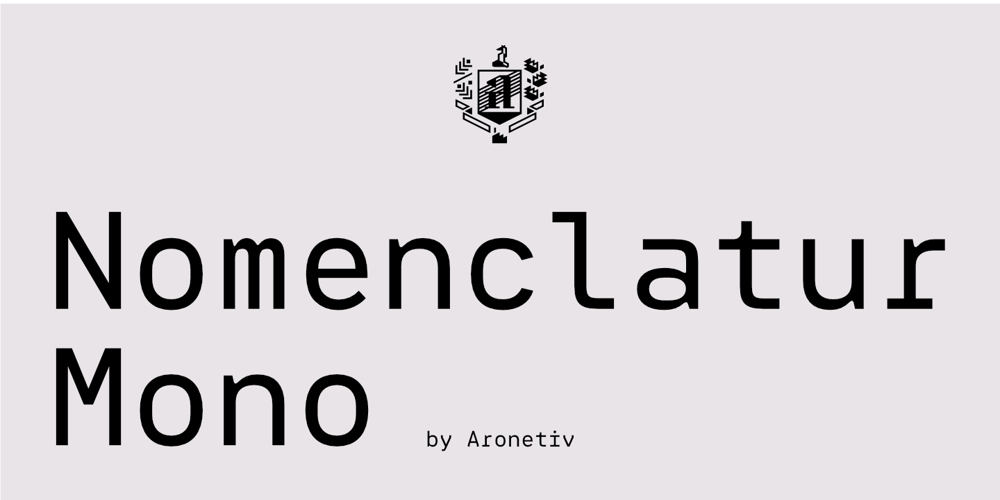
Nomenclatur Mono
Nomenclatur Mono font
Nomenclatur Mono Font Family was designed by Aleksey Popovtsev and published by Aronetiv. Nomenclatur Mono contains 15 styles and family package options. This monospaced font family combines clean, even-width characters, making it ideal for reading code. Its unique design elements add a touch of creativity while maintaining a professional coding environment.The characters strike a balance between modern aesthetics and functional clarity, enhancing the overall technical experience with a touch of visual appeal.Featuring 15 styles, this extensive monospaced font family offers a diverse range for different design scenarios. From bold to light and condensed, it caters to a variety of preferences, while consistent character widths ensure accurate text alignment.Intriguing design nuances in different styles add a dynamic visual emotion, making it a comprehensive and visually appealing choice for modern aesthetic projects.